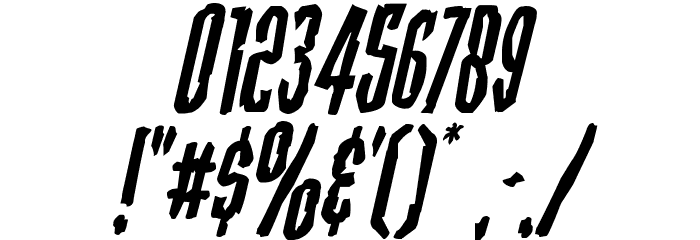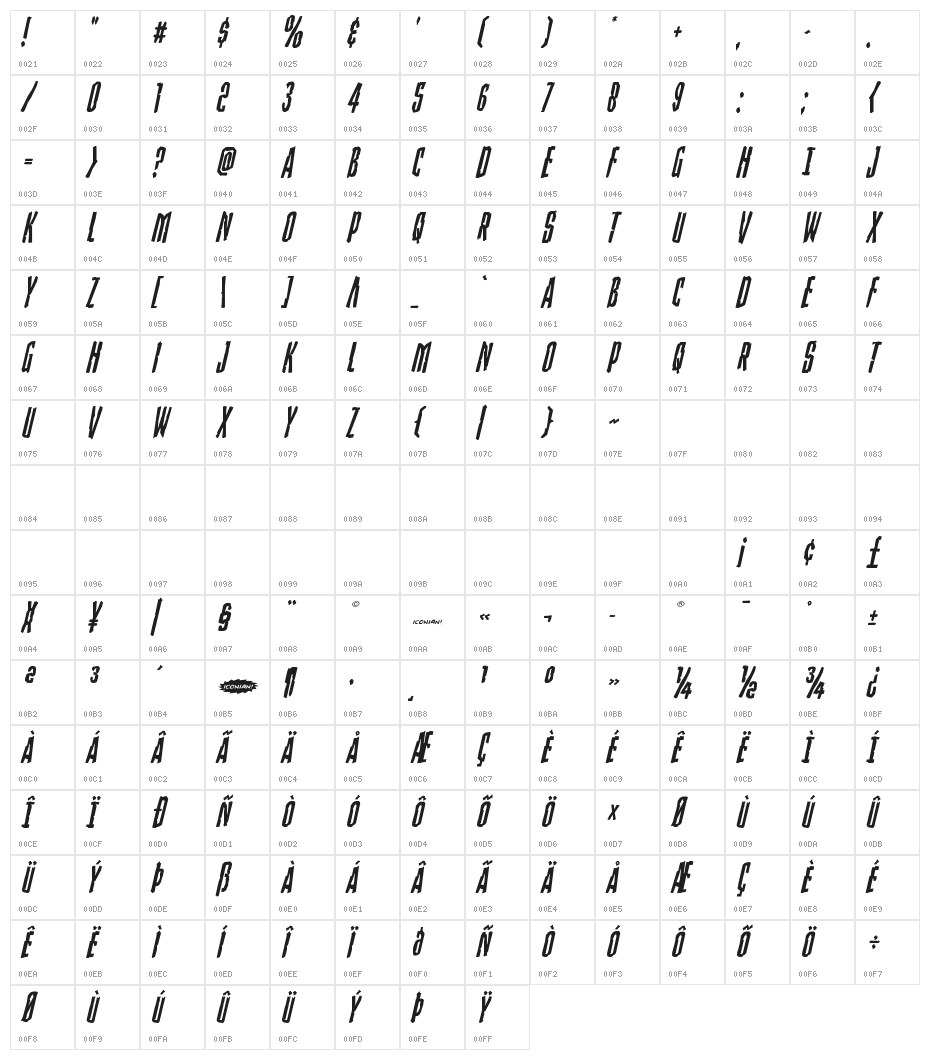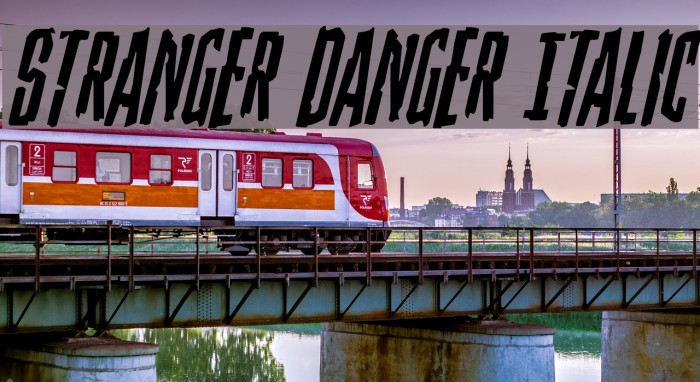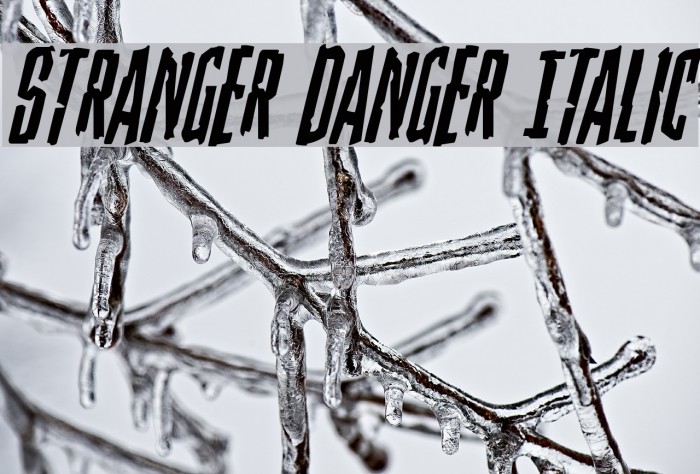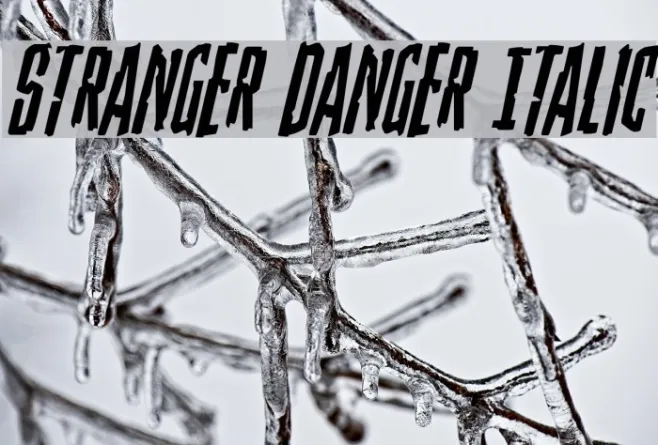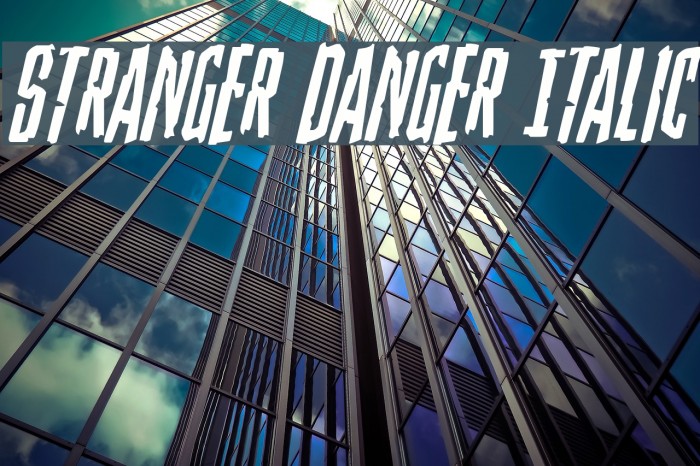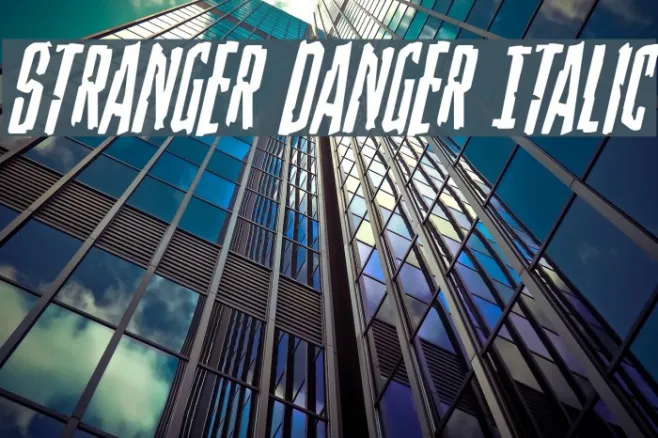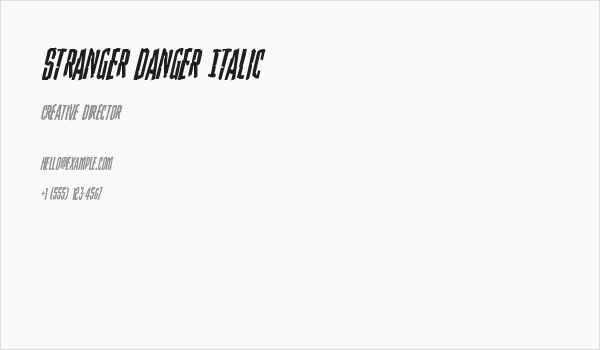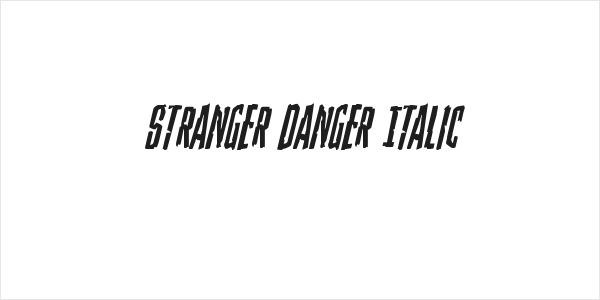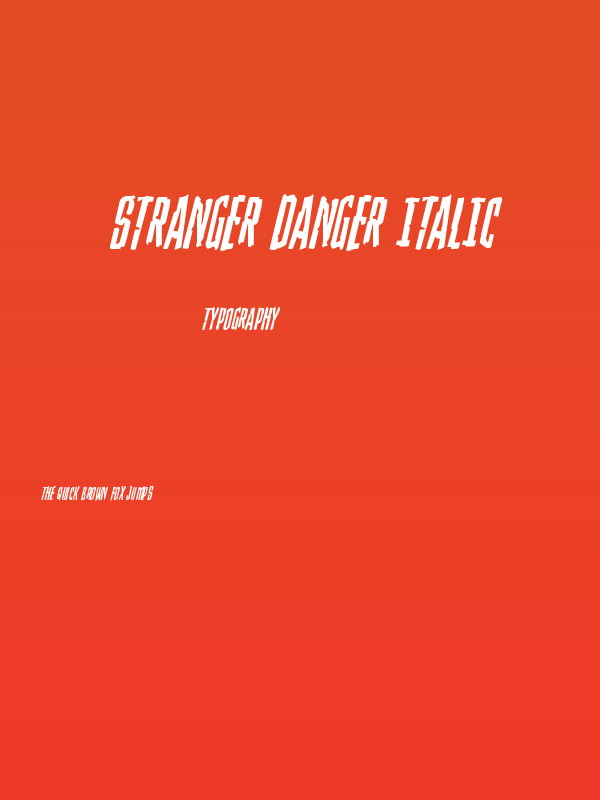
Stranger Danger Italic Font
Stranger Danger Italic Description
This font features a bold, italicized style with a strong, dynamic presence. The characters are sharply angled, giving a sense of movement and urgency. The uppercase and lowercase letters maintain a consistent slant, enhancing the italic effect. The numbers and special characters follow the same stylistic approach, ensuring uniformity across all elements. The strokes are thick, contributing to a high contrast between the characters and the background. This font's aggressive and edgy appearance makes it suitable for attention-grabbing designs.
Proposed ProjectsIdeal for posters, logos, and branding that require a bold and dynamic look.